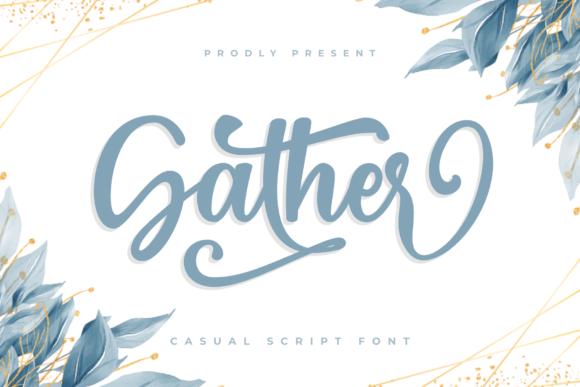
Unleash the charm of handwritten notes and signatures with Gather Font, a creation of Pen Culture. This captivating script font family exudes a warm and inviting aura, turning your digital or physical creations into masterpieces.
Express your individuality with Gather Font's charming and friendly vibe, perfect for adding a personal touch to Instagram posts, heartfelt letters, or unique DIY projects. Whether you're a seasoned calligraphy enthusiast or just starting your creative journey, Gather Font will elevate your designs to new heights.
Immerse yourself in the world of Gather Font, where each letter dances across the page with grace and elegance. Its carefully crafted alternates, ligatures, and swashes provide endless possibilities for customization, making it the ideal choice for any project that demands a touch of sophistication and charm.
Say goodbye to ordinary fonts and embrace the allure of Gather Font, the ultimate choice for those seeking a font that sparks creativity and ignites the imagination. Dive into its enchanting world and let your ideas flourish into works of art.